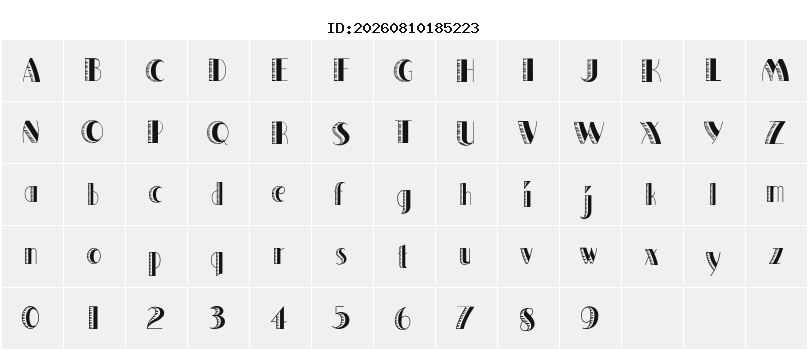
Quaker Shade Preview
• Font Name: Quaker Shade
• Designer: Robert Fauver
• Manufacturer: Robert Fauver, Typeoloy
About Quaker Shade.otf
Quaker Shade.otf is a modern, elegant sans-serif font designed for ultimate readability and visual harmony. Perfect for branding, headlines, web design, and print materials.